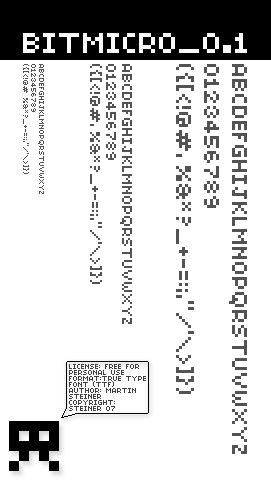
Bit Micro 01 by Steiner is a free pixel display font built from stark, squared modules. Its letters use abrupt steps, rectangular gaps, and rigid right angles rather than softened curves. The result feels like an early computer readout.
Arcade title screens are its strongest setting, especially for games that draw on 8-bit graphics. It can also shape technology posters, electronic music artwork, and retro merchandise with an unmistakably digital edge. The block-built lettering can become part of the pixel imagery itself, echoing tiled icons, interface panels, and low-resolution scenery.